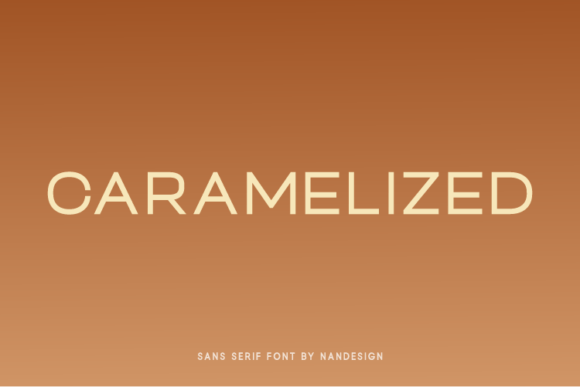
Introducing Caramelized Font: The Ultimate Sans Serif for Your Design Projects
Are you tired of using the same old fonts for your design projects? Look no further! Caramelized Font is a stunning sans serif font that is sure to complement every project you’re working on. With its clean and modern design, Caramelized is perfect for creating beautiful headings, gorgeous invitations, stunning logos, and so much more.
What Makes Caramelized Font So Special?
Caramelized Font is a versatile font that is designed to make your designs stand out. Its sans serif design makes it perfect for displays, headers, invitations, save the dates, weddings, and a wide range of other applications. The font contains an uppercase alphabet with numbers and symbols, giving you everything you need to create stunning designs.
Whether you’re a professional designer or a crafter, Caramelized Font is the perfect addition to your font collection. Its modern design and versatility make it ideal for a wide range of projects, from wedding invitations and save the dates to logos and branding materials. With Caramelized, you can add a touch of elegance and sophistication to your designs.
With Caramelized Font, the design possibilities are endless. Here are just a few ideas to get you started:
- Create stunning headings and titles for your blog posts, articles, and website
- Design beautiful invitations for weddings, baby showers, and other special occasions
- Develop a unique and memorable logo for your business or brand
- Make gorgeous save the dates and wedding stationery
- Add a touch of elegance to your social media graphics and posts
Why Choose Caramelized Font?
So why choose Caramelized Font over other fonts? Here are just a few reasons:
- Unique Design: Caramelized Font has a unique and modern design that will make your designs stand out
- Versatility: The font is perfect for a wide range of projects, from displays and headers to invitations and logos
- High-Quality: The font is high-quality and will look great in any design